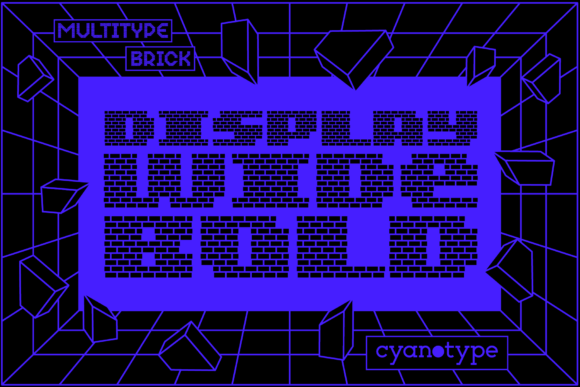
Dive into the mesmerizing world of pixelated aesthetics with MultiType Brick Display Wide Bold, a font that breathes life into your designs with its captivating distorted charm. As part of the display font family, this extraordinary creation by cyanotype stands out as the ultimate choice for crafting captivating headlines, eye-catching logos, posters that demand attention, and social media graphics that ignite engagement.
Unleash the power of pixel art in your creative endeavors. MultiType Brick Display Wide Bold's chunky, pixelated characters exude a retro appeal that harkens back to the era of 8-bit games and vintage arcade cabinets. This unique font adds a touch of nostalgia and playfulness to any design, transporting your audience back to a simpler time.
With MultiType Brick Display Wide Bold, you gain access to a font that's not just visually striking but also incredibly versatile. Its wide, bold structure lends itself perfectly to large-scale applications, making it ideal for posters, billboards, and signage that demand attention from afar. Yet, its intricate details and pixelated texture add a layer of depth and intrigue to smaller designs like business cards, invitations, and social media posts.
Don't settle for ordinary fonts that blend into the background. Embrace the captivating allure of MultiType Brick Display Wide Bold and let your designs shine with individuality and boldness. As a font that embodies the essence of pixel art, it's a true game-changer in the world of typography. Experience the transformative power of MultiType Brick Display Wide Bold today and elevate your designs to new heights of visual brilliance.